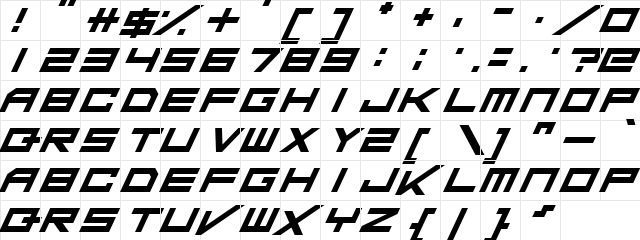
Da Mad Rave Italic
| Designer | Darrell Flood |
Design Context for Da Mad Rave Typeface
Da Mad Rave is a composed and adaptable typeface that performs quietly and consistently across a wide range of design contexts. The dynamic lean of this cut emphasises speed and emphasis in any layout.